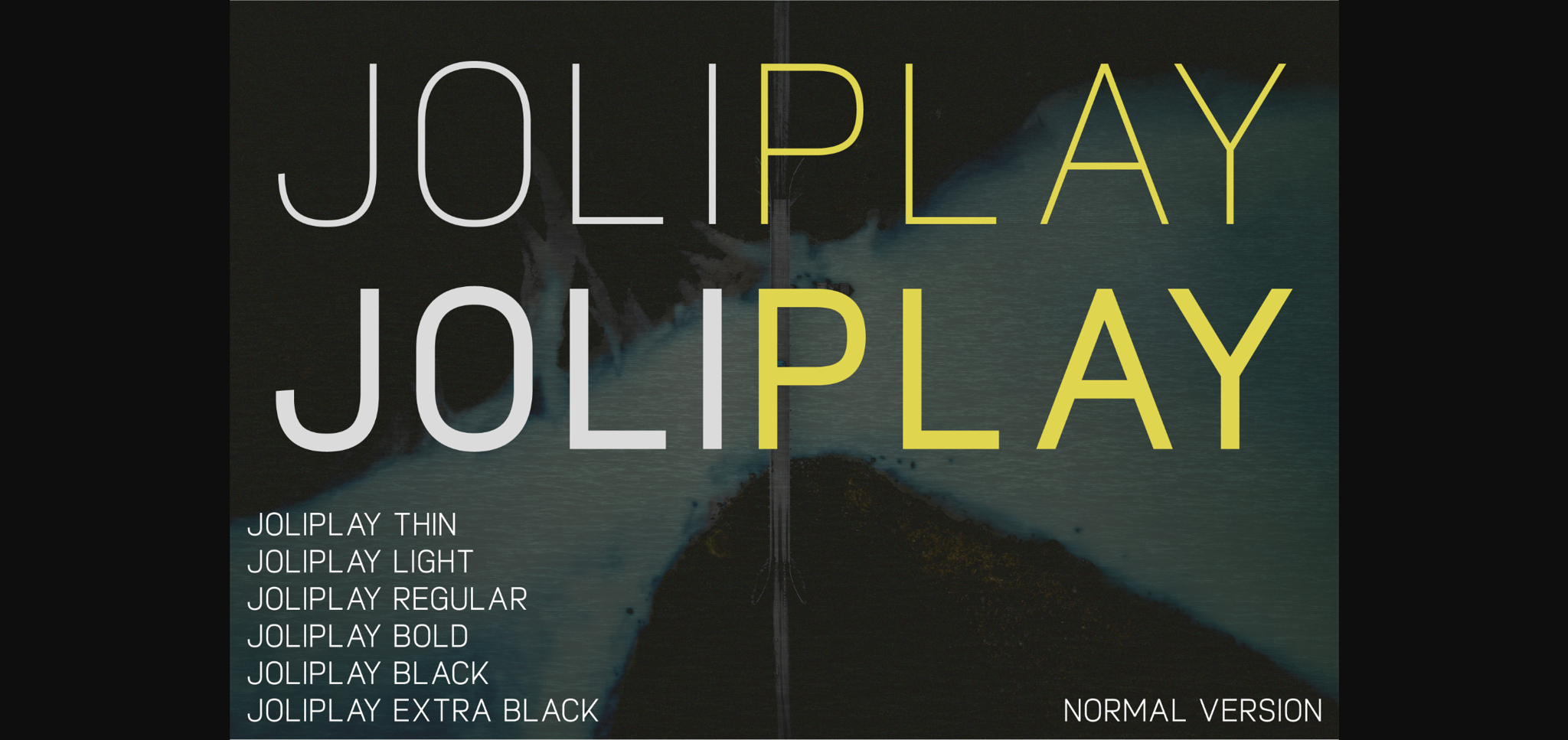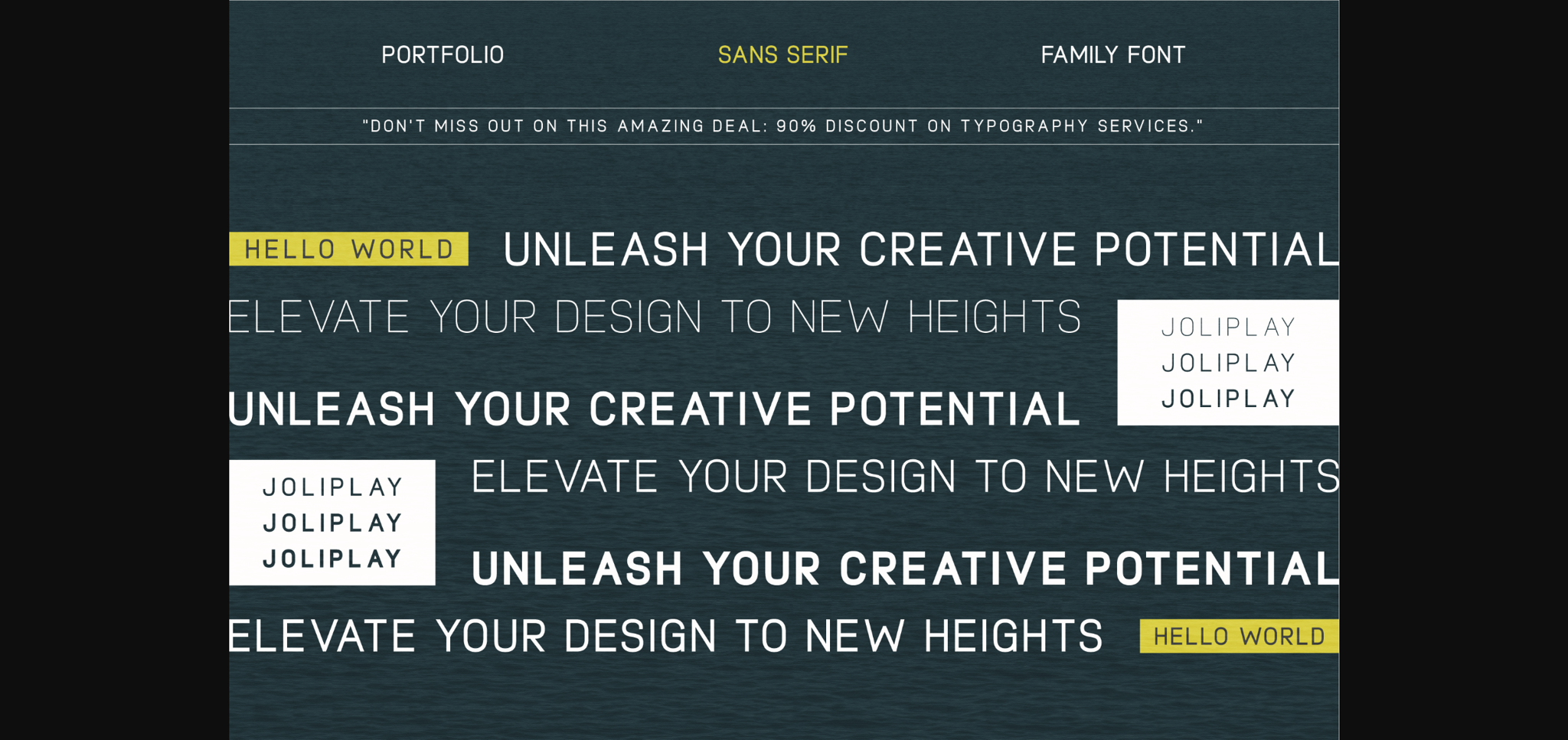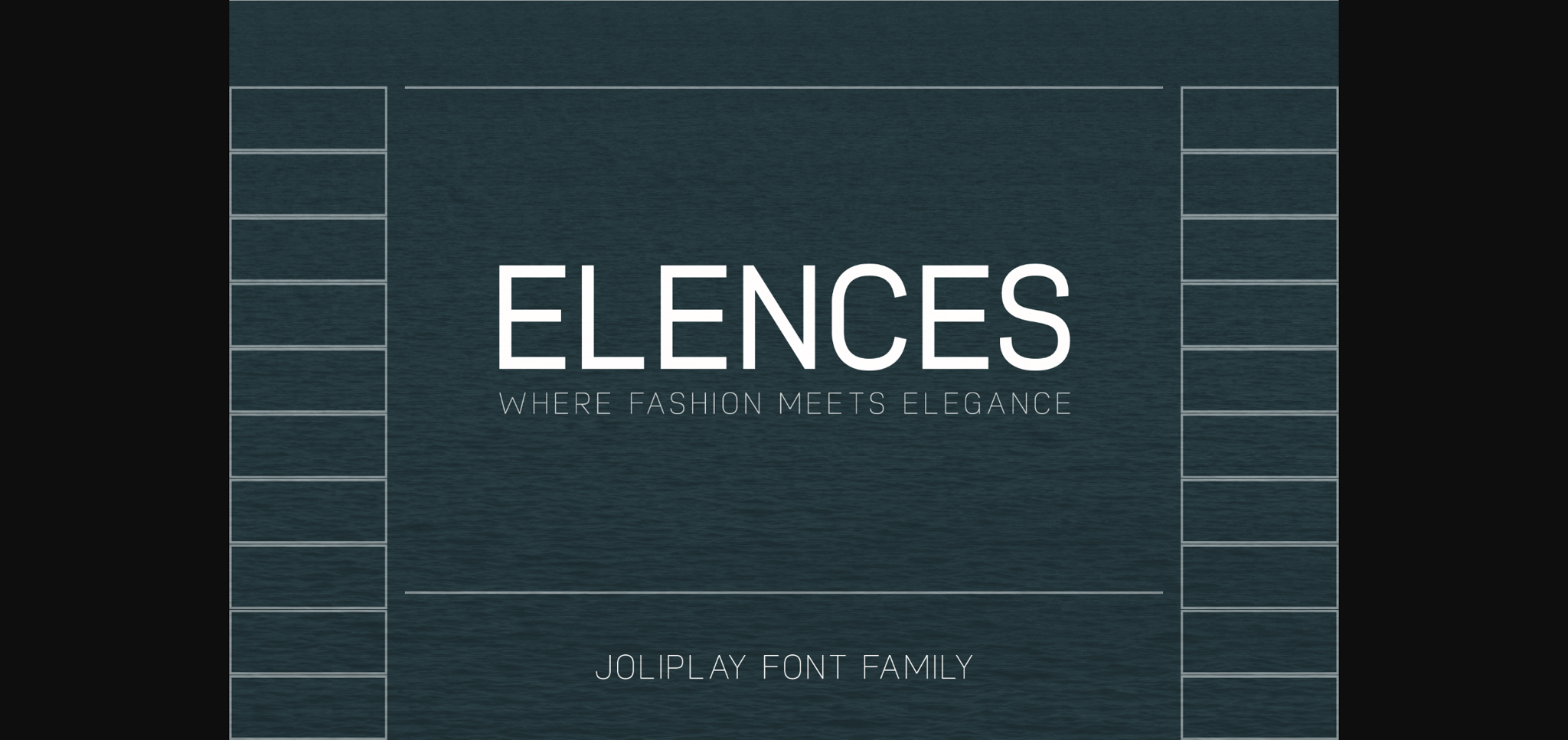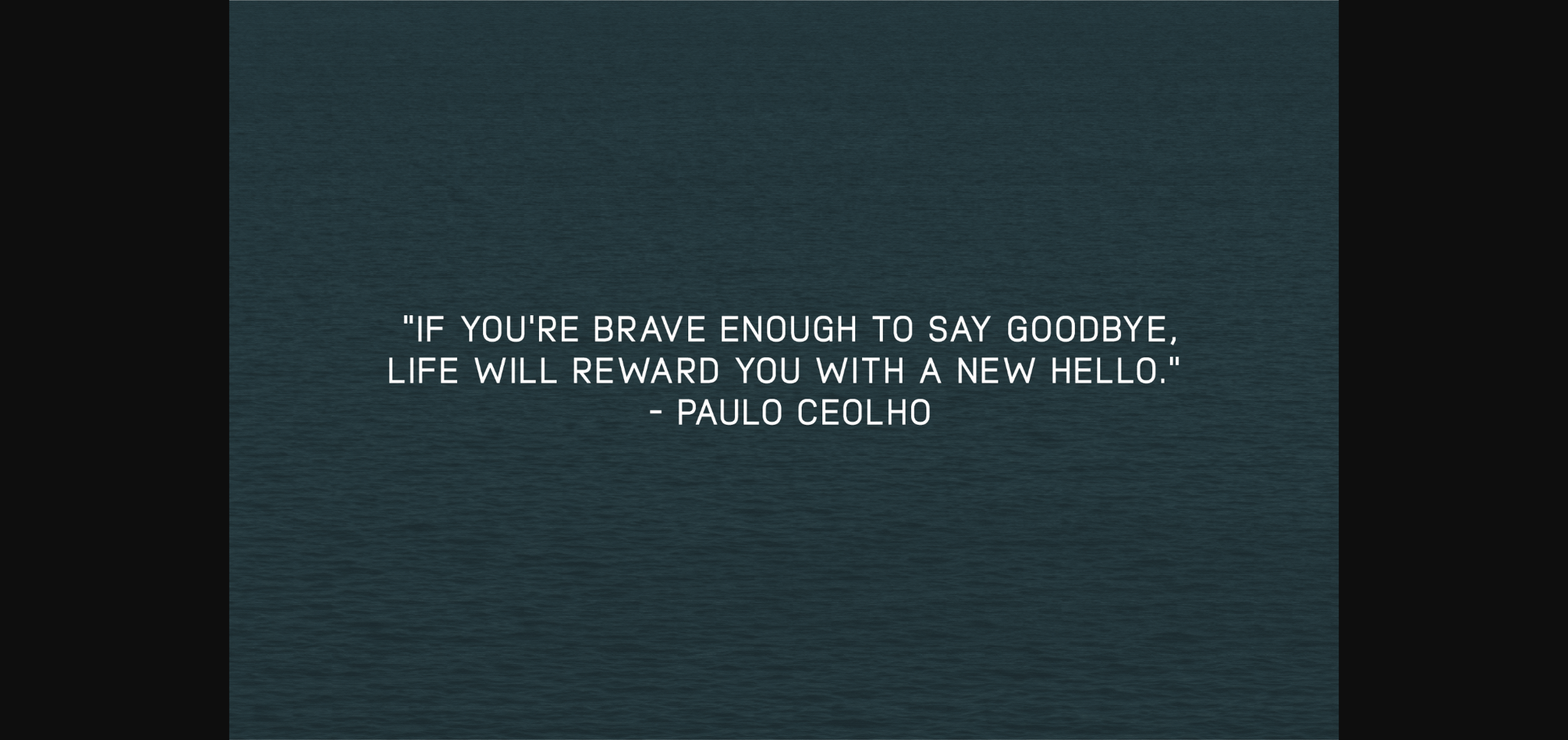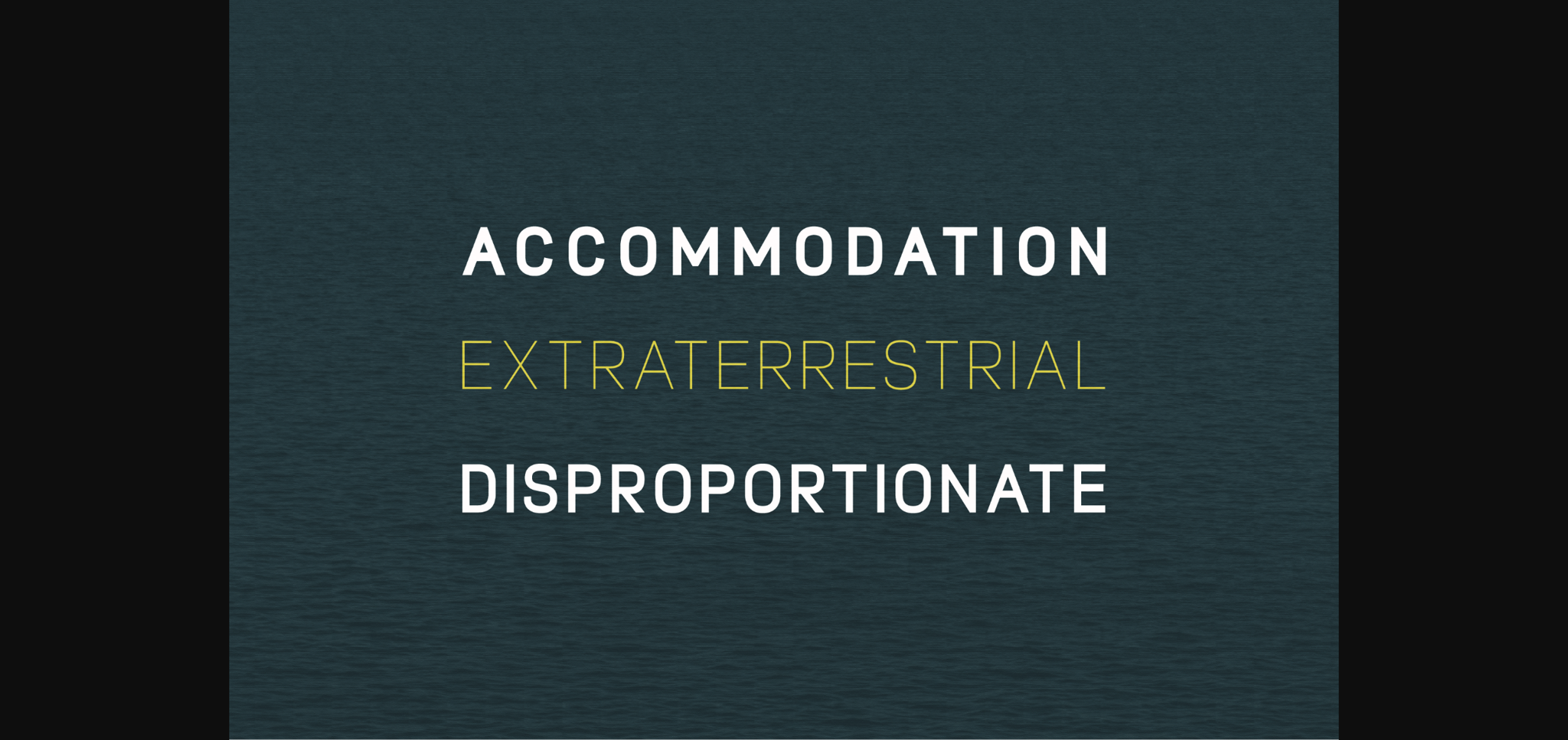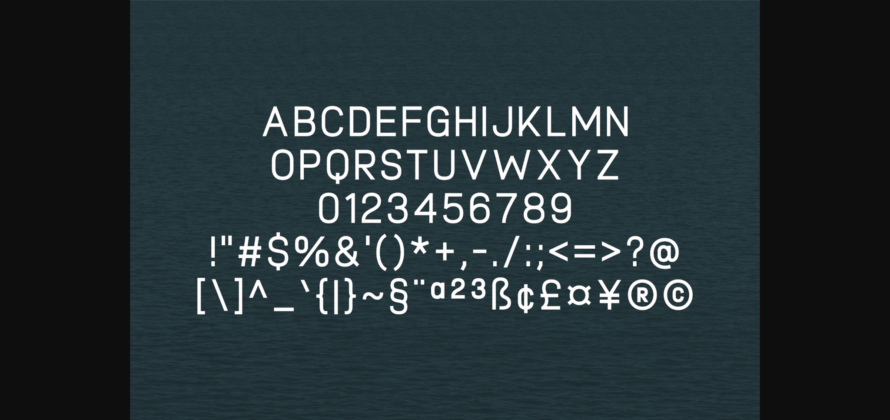
Joliplay Font
About Joliplay Font
Introducing our exquisite font family, the Joliplay an embodiment of elegance and minimalism. With 5 distinct weights, this sans serif collection seamlessly combines modernity and luxury. Crafted with utmost precision, it effortlessly enhances any project, whether it be a magazine, logo, or film poster. Discover the perfect balance of sophistication and simplicity, allowing your designs to exude timeless charm. Unlock the power of our font family today.